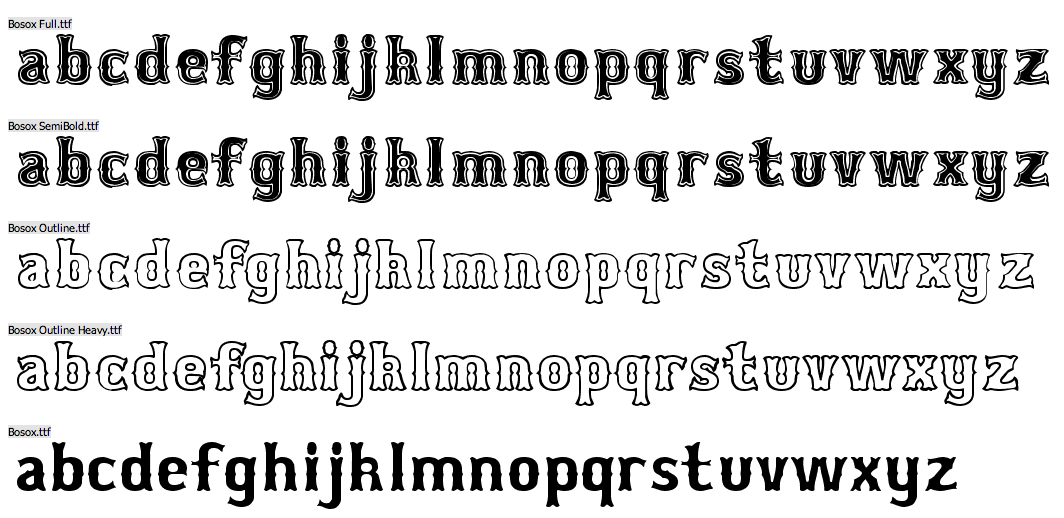
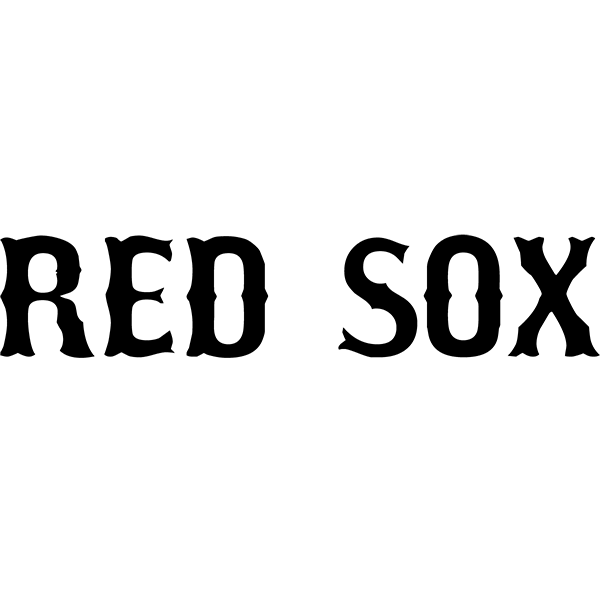
It seems that chicago white sox logo uses a display serif font and the font is yet to be identified. The boston red sox font: Until now, this team has won nine world series championships, and the most recent win was in 2018.
Display serif fonts on myfonts.com. The boston red sox are an american professional baseball team based in boston, massachusetts. The font used in their logo is called old english.
Player numbers on the front and back of the jerseys are white with grey trim and styled as if they were a natural extension of the font used for. Click to find the best 3 free fonts in the boston red sox style. It was designed specifically for display, headline, logotype, branding, and similar applications.
Size Bosox By Lee Gordon.
In fancy > western 416,701 downloads. The white sox logo in the 1950s and 1960s (actually beginning in the 1949 season) was the word sox in an old english font, diagonally arranged, with the s larger than the other two letters. From 1949 through 1963, the primary color was black (trimmed with red after 1951).
The Red Sox Is An American Professional Baseball Team Based In Boston, Usa.
The boston red sox font: Until now, this team has won nine world series championships, and the most recent win was in 2018. It seems that chicago white sox logo uses a display serif font and the font is yet to be identified.